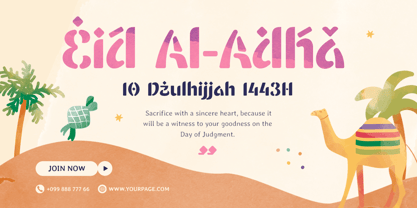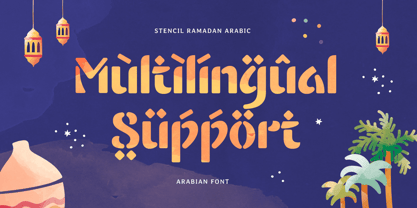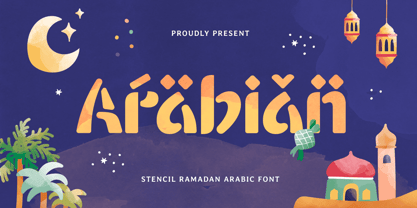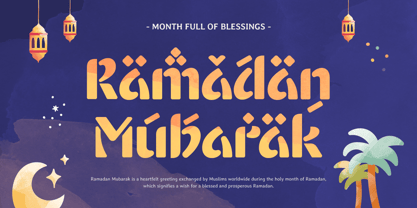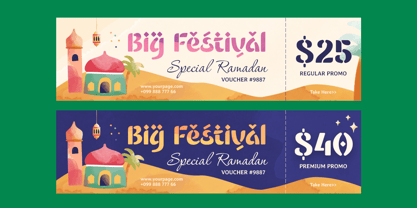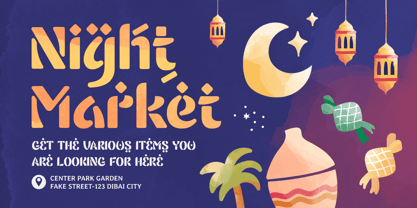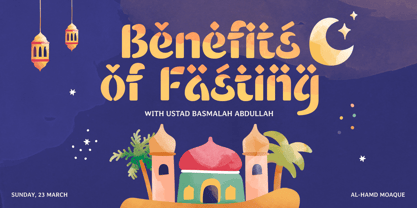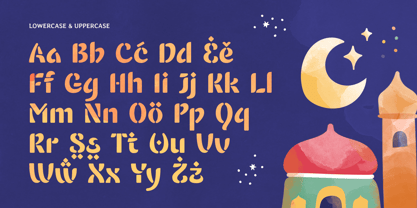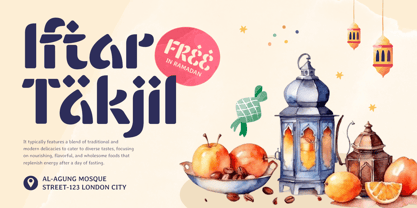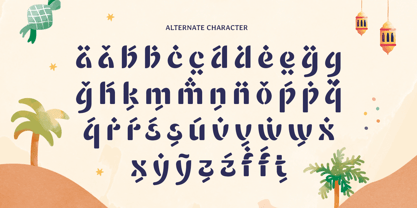
Arabian
by Sensatype Studio
Arabian - Stencil Ramadan Arabic Font
Arabian is a stencil-style Arabic font designed to capture the spirit of Ramadan and other cultural celebrations. Its unique blend of modern stencil aesthetics and traditional Arabic calligraphy makes it perfect for creating bold and striking designs. Ideal for branding, event invitations, Ramadan greetings, and Islamic art projects, Arabian offers a fresh and distinctive look.
This font draws inspiration from the cultural richness of the Middle East, enhanced by the clean and structured appeal of stencil typography. Whether used for banners, digital media, or packaging, Arabian provides a dynamic and contemporary design solution, ensuring your message stands out with a touch of tradition.
Transform your designs with Arabian, a font crafted to merge cultural authenticity with modernity. Its versatility and unique style make it an essential tool for designers working on projects that require both innovation and cultural sensitivity.
Arabian Stencil Ramadan Arabic Font Features:
• Unique Stencil Design with Arabic Script
• Uppercase and Lowercase
• Opentype Features
Multilingual Characters available for:
Afrikaans, Albanian, Asu, Basque, Bemba, Bena, Breton, Chiga, Cornish, Dutch, English, Estonian, Filipino, Finnish, Friulian, Galician, German, Gusii, Indonesian, Irish, Italian, Kabuverdianu, Kalenjin, Kinyarwanda, Luo, Luxembourgish, Luyia, Machame, Makhuwa-Meetto, Makonde, Malagasy, Manx, Morisyen, North Ndebele, Nyankole, Oromo, Portuguese, Quechua, Romansh, Rombo, Rundi, Rwa, Samburu, Sango, Sangu, Scottish Gaelic, Sena, Shambala, Shona, Soga, Somali, Spanish, Swahili, Swedish, Swiss.